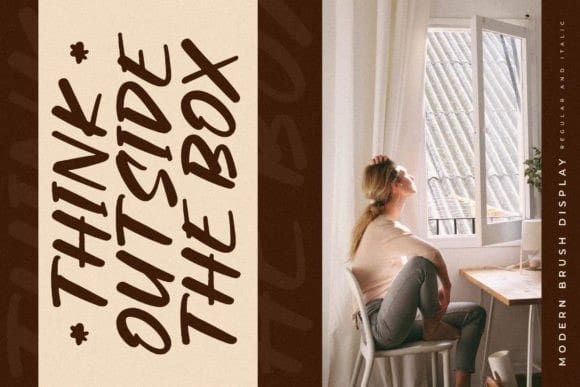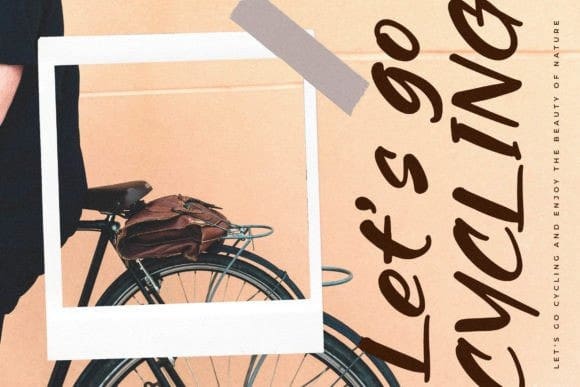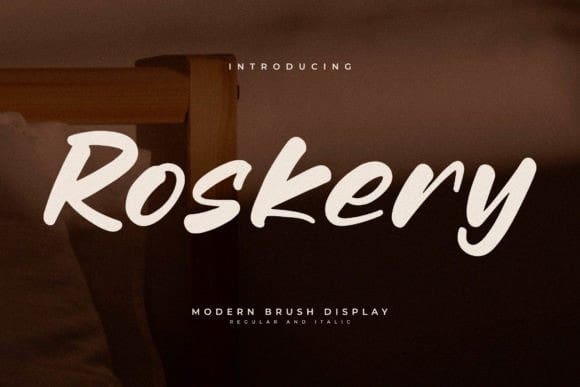
Roskery Script Font
Roskery Script Font is a bold and elegant script font, suitable for any project like logos, branding, homeware designs, product packaging, mugs, quotes, posters, shopping bags, t-shirts, book covers, name card and so much more!